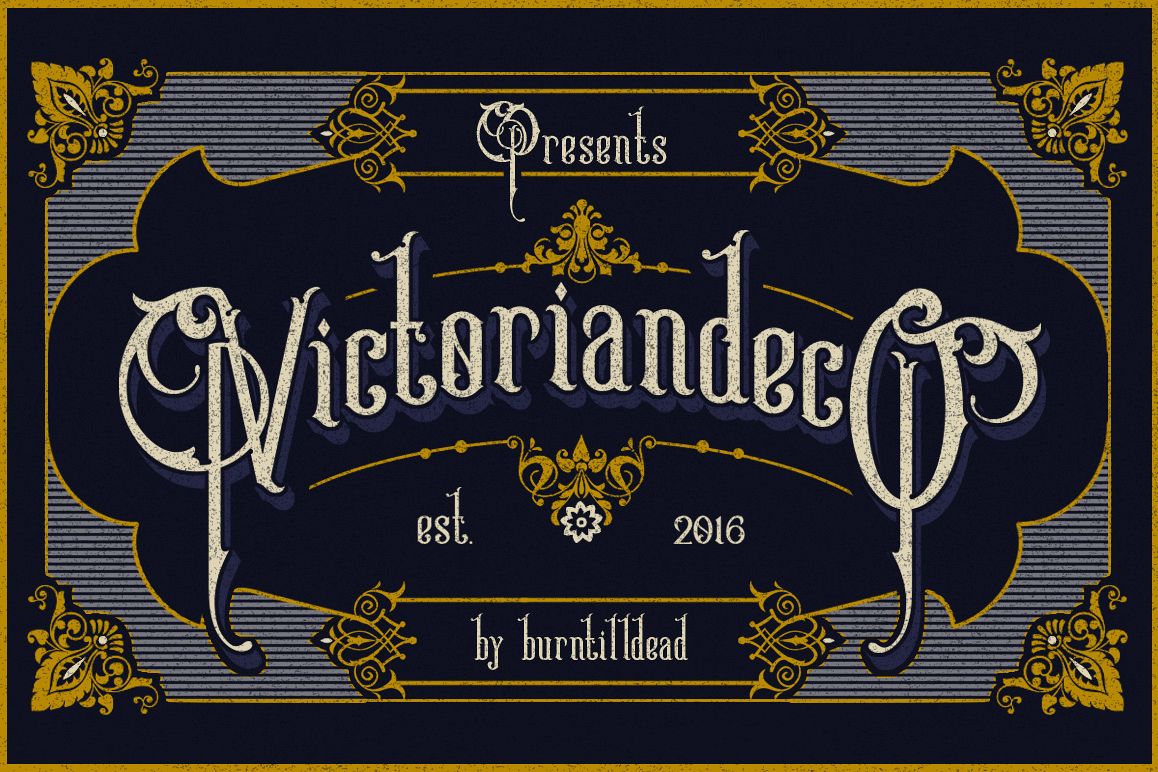
Please welcome Victoriandeco. It's very easy and simple to use.
Inspired from the Victorian era of British history, the period of Queen Victoria's reign from 1837-1901. The beautiful edge of ornate decoration and classic font.
Victoriandeco works well with normal size text, but it works even better for large displays, short words, or even just to incorporate a few or single characters in a design.